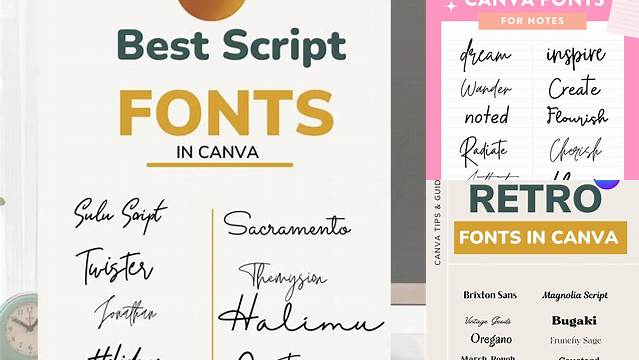
Canva's Best Free Script Fonts: Your Ultimate Guide
Hey everyone! Are you ready to spice up your designs with some beautiful script fonts on Canva? Seriously, script fonts can add such a personal and elegant touch to anything, from social media posts to invitations and even presentations. The best part? Canva offers a ton of these fonts, and a bunch of them are totally free! So, guys, in this guide, we're going to dive deep into the world of Canva's best free script fonts, exploring how to find them, how to use them, and even some tips on pairing them with other fonts to create stunning visuals. Get ready to unleash your inner designer because we're about to make your designs pop! Let's get started and explore the world of free script fonts on Canva!
1. What Makes a Script Font Special?
Alright, let's get down to the nitty-gritty. What exactly is a script font, and why is it so cool? Think of script fonts as the digital versions of handwriting or calligraphy. They're designed to mimic the flow and elegance of cursive writing, with letters often connected to each other, creating a sense of continuity and grace. This unique characteristic makes script fonts ideal for adding a touch of personality and sophistication to your designs. They're perfect for conveying a feeling of authenticity, warmth, and creativity. Script fonts can evoke a range of emotions, from romance and nostalgia to playfulness and modern flair, depending on their style and the design they're used in. The curves, loops, and flourishes of a well-chosen script font can instantly elevate the visual appeal of any project. They’re a fantastic way to make your designs stand out from the crowd, whether you're creating a logo, a wedding invitation, or a social media graphic. So, in essence, the magic of a script font lies in its ability to humanize and personalize your designs, adding a touch of elegance and style that's hard to replicate with other font types. And with Canva's best free script fonts at your fingertips, you have a treasure trove of options to explore and experiment with. Choosing the right script font can transform a simple design into something truly special.
Think of it like this: a script font can be the star of the show, especially when used for headlines or key text elements. It immediately grabs attention and sets the tone for your message. They're particularly effective when you want to communicate a sense of artistry or craftsmanship. Whether you're designing a logo for a handmade jewelry business, creating a poster for a music event, or even just making a birthday card, a script font can add that special touch that makes your design memorable. Also, the use of script fonts extends far beyond just looking pretty; they can also communicate a brand's values. For example, a more elaborate and flourished script font might be perfect for a luxury brand, while a more casual and modern script font could be ideal for a startup. So, before you begin, understanding how script fonts work and where they come from is an essential part of the design process.
Remember to experiment with different fonts and see how they look together. Canva's font library is constantly updated, so you'll always have new options to explore. Also, always be mindful of the readability of your chosen font. Script fonts can be beautiful, but they can sometimes be difficult to read if used in large bodies of text. When using Canva's best free script fonts, it's always a good idea to pair them with a more straightforward font for the body text to ensure that your message is clear and easy to understand. Keep your eye on the search bar as it's your best friend. The font dropdown menu is also incredibly useful, but the search bar helps filter the results. Always make sure that you check your selected script font in various contexts (headlines, subheadings, and body text) before finalizing your design. Finally, remember to have fun and let your creativity flow!
3. Top 10 Free Script Fonts to Try on Canva
Now comes the fun part: selecting some amazing script fonts! Canva is overflowing with great options, so let's spotlight 10 of Canva's best free script fonts to get you started. These fonts are versatile, stylish, and perfect for a wide range of design projects. Let's dive in!
- Playlist Script: This is a beautiful, flowing script font with a modern touch. It’s great for quotes, headlines, and adding a touch of elegance to your designs. It's perfect for creating a sense of warmth and sophistication in your designs. It looks particularly great in titles and headlines, and it works well in both large and small sizes. Using this font adds a professional touch, and it's surprisingly versatile. You can easily find its place in almost any context. It's also a great option if you're new to script fonts because of its easy readability.
- Dancing Script: This is a playful and friendly script font that's perfect for adding a touch of whimsy. It's excellent for invitations, social media graphics, and anything that needs a fun and lighthearted vibe. Dancing Script is very versatile and can be adjusted to suit both modern and classic designs. Its easy-to-read form also makes it an ideal choice for long quotes or for using it in body paragraphs. It gives a handwritten feel to every element it is used in, making it great for creating an informal feeling.
- Great Vibes: If you're looking for a classic and elegant script font, Great Vibes is the way to go. It has a refined and sophisticated look, making it perfect for wedding invitations, logos, and branding. This script font is known for its beauty and versatility, and it creates a timeless appearance. It's often used for high-end branding and other elegant designs, making it easy to create an upscale feel. This script font’s beauty lies in its simple elegance and can be a great choice for creating designs that need a professional and sophisticated appearance.
- Satisfy: A modern and stylish script font that works well for headlines, logos, and branding. It has a clean and legible design that looks great in both digital and print formats. This is an ideal choice for headlines or short text elements, and it can create a modern and trendy feel. If your goal is to create something that feels both stylish and current, Satisfy is the way to go. Its versatility also makes it perfect for various creative uses.
- Sacramento: This font has a vintage look and offers a unique touch, giving your projects a feeling of nostalgia. Its simplicity makes it a great choice for headlines, and its clear design guarantees readability. Sacramento is an incredible choice for any project that needs a classic feel.
Canva's Font Pairings feature is based on design principles and best practices, so you can be sure that the combinations it suggests will look good together. It takes the guesswork out of font pairing and allows you to quickly create visually appealing designs. This can be especially helpful when using Canva's best free script fonts, as it can provide suggestions for fonts that work well with them. And while Canva's Font Pairings feature is a great starting point, don't be afraid to experiment with your own combinations. You can also use Canva's search function to find more font pairings, and you can easily search for combinations by typing the name of the script font into the search bar, followed by the words